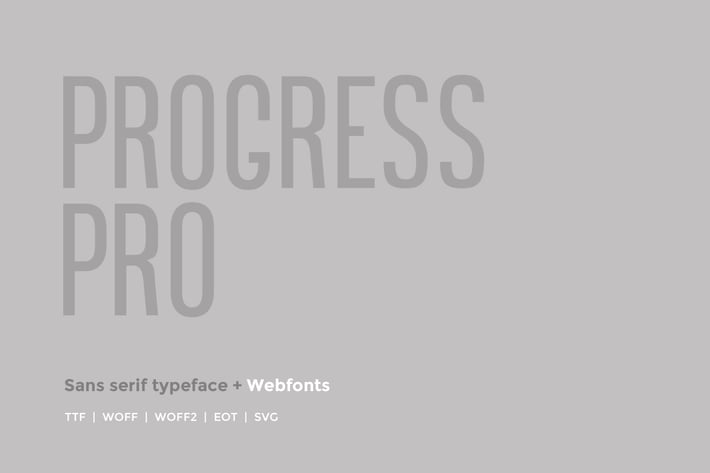
Progress pro - Modern Typeface + WebFont
Progress Pro Typeface
Progress Pro is a modern Sans Serif typeface very much suitable for Film Posters, headlines, Block letter, Subheading, Logo Designs, Big Banners. Classic & Decorative Typography Web Designs.
Font Designed and Crafted by Richard Mayer, Distributed by Webhance Studio.